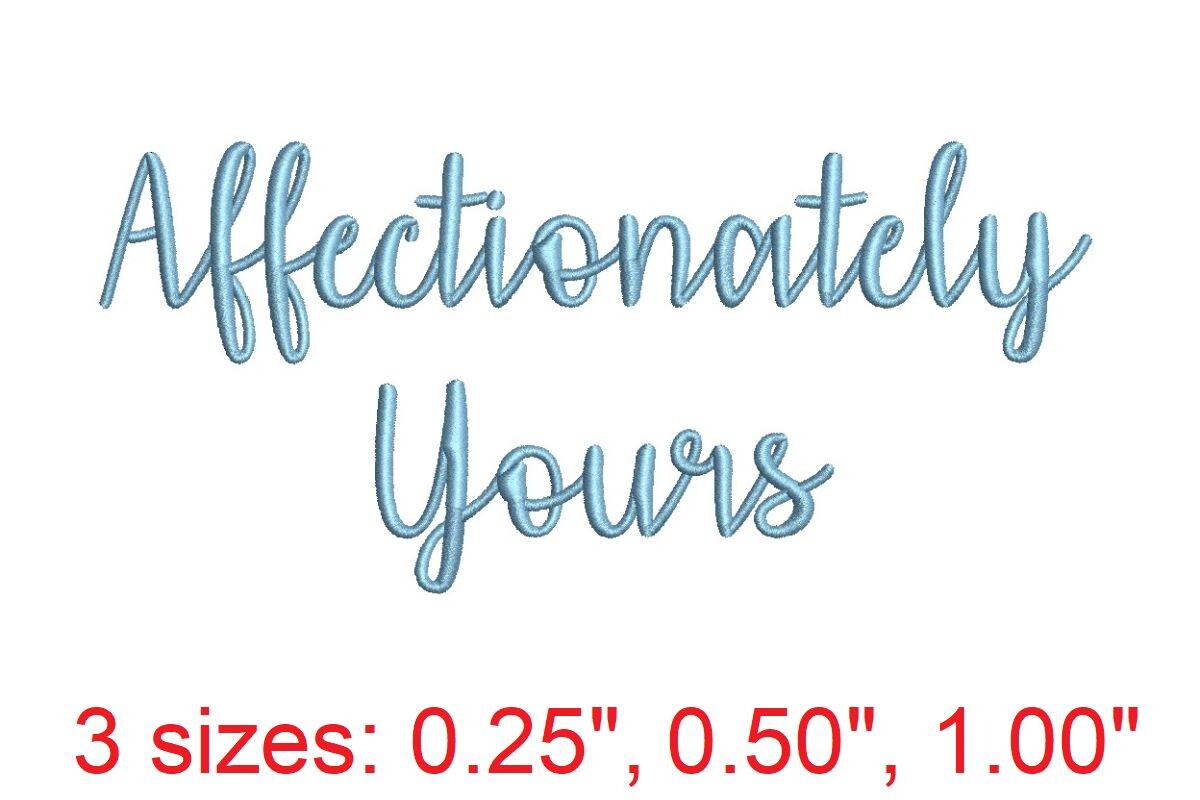
Affectionately Yours Embroidery Font
Elevate your embroidery projects with the “Affectionately Yours” embroidery font. Designed for use with the popular PES file format, this font is compatible with a range of embroidery machines including Brother and Babylock. Transform ordinary monograms into extraordinary pieces with the font’s elegant calligraphy style. Elevate your creations with personalized, decorative stitches that showcase intricate designs and artistic flair. Perfect for both beginners and seasoned embroidery enthusiasts, “Affectionately Yours” adds a touch of sophistication to your sewing crafts. Unlock your creative potential with this digital download, and infuse every stitch with love and charm. Please note: The sizes and stitches information shown below is for “A” and “a” in each size. This is provided as a summary of what is available in this download file. For the full dimension details of the 156 letters in this set, click on the More Sewing Info (PDF) button on this page. This machine embroidery design comes with multiple embroidery file formats and can be used with multiple embroidery machines.